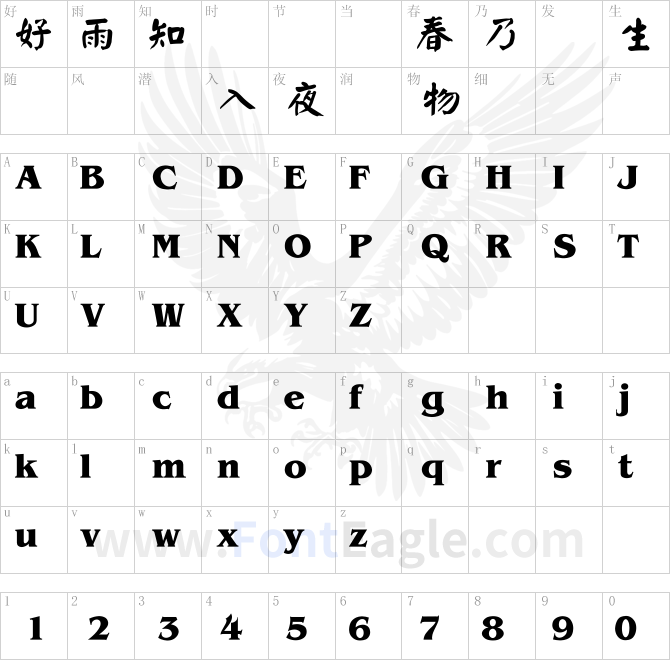
- Font name:JetLink MediumYanKai
JetLink-MediumYanKai is a great font, widely used in graphic design, single-page menu design, poster design and other fields, and is deeply loved by designers.JetLink-MediumYanKai download.